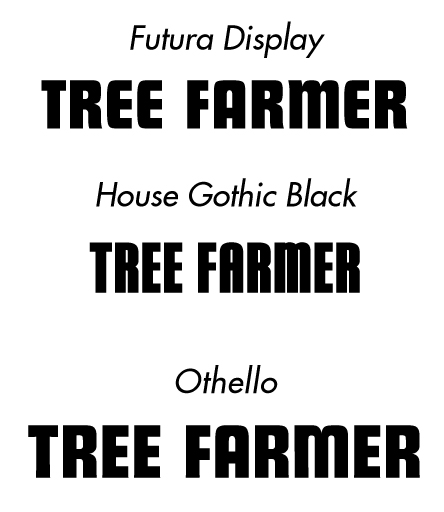
Looking for Font Name
Was wondering if anyone could put a name on this font for me? Sorry picture isn't the greatest, thanks for any help.
Hard to tell from the pic George but here are the only three I can find with similar features. Othello appears to be closest, however it is not the same Othello sold by Fonts.com and I have no idea where my copy has come from.
:thankyou: Fred. Looks like a recognizable font to me, but I haven't come close with all I have here.
Geb and Fred,
At first I wanted to say Aurora but then saw cap A in Aurora not rounded same at top.
Othello looks like has spur on base of R (sample on machine looks pretty straight on foot of R).
I took Geb's pic, enlarged 2x and 2x on resolution. Still a challenge to match. Geb, if you are selling graphics for restoration and to replace old lettering, this would have been trace and covert-to-vector for me.
The T, F and E are share most of the same strokes and are all straight lines. Easy to recreate from bitmap, drawing rectangles in Corel, Illustrator or any sign program.
The R, A and M share stroke widths and curves.
Once character A is recreated, massaging it into an R or M is easy by chopping apart sections, copying, pasting and welding.
I'd vote for House Gothic Black if you are using lots of characters or if the customer wants cheap, quick and dirty. But if just for this one machine, for total accuracy, and impressing the customer...
Give them the ultimate restoration letters and 'selling' them on the value of your time by tracing them and creating a perfect set. I have made several restoration sets for a collector of antique Cockshutt (hehehe), Co-Op, Oliver and Hart-Parr tractors. Nothing will match the original in time savings and accurate reproduction except - trace and convert-to-vector.
I did the same, drew, traced, and scanned, and it took a little but it was worth the effort.